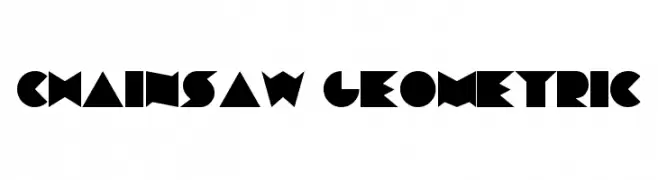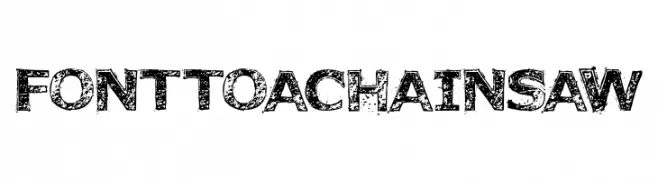
A bold, pixelated font with a geometric, retro digital style.
A bold, geometric font with sharp angles and a modern, industrial aesthetic.
A bold, geometric font with sharp angles and a striking appearance.
A bold, decorative font with a three-dimensional shadow effect.
A bold, distressed font with a rugged, industrial look.
A rugged, distressed font with a chaotic, edgy appearance.
A bold, industrial font inspired by bicycle chains with a rugged, mechanical look.
A bold, weapon-themed decorative font with gothic influences.